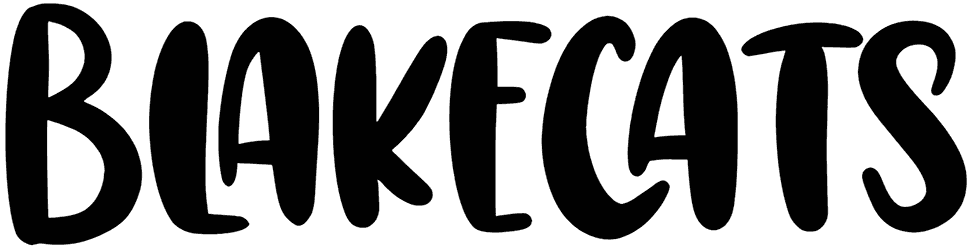
Babybird Font
Motivated by a lifelike sense, and love script fonts? Find the amazing best of them in this latest exhibition offered by RB! Babybird, with cartoonish characters, is one of those options that not everyone reaches.
This all-caps baby font holds a cohesively funny essence and slightly slanted letters, sometimes happy and cozy. Cartoons, animations, TV programs, storybook covers, vision games, and greeting cards are considerable places for embedding. Let it run; definitely, it will be applauded for its sweet tune.
the latest style letters are perfect for wall displays, wedding invitations, social media post logos,
advertisements, product packaging, product designs, labels, photography, watermarks, invitations, stationery,
and any project that requires taste handwriting.